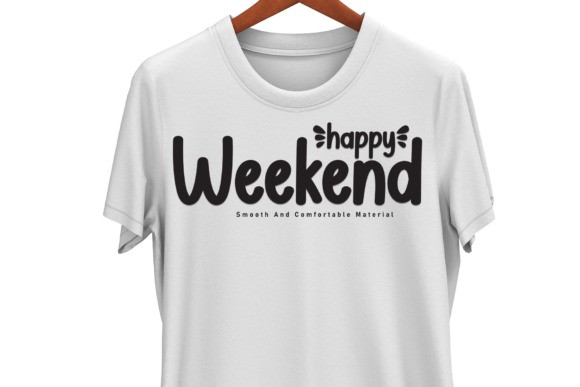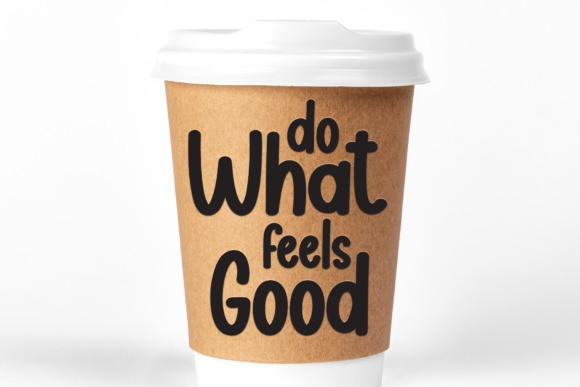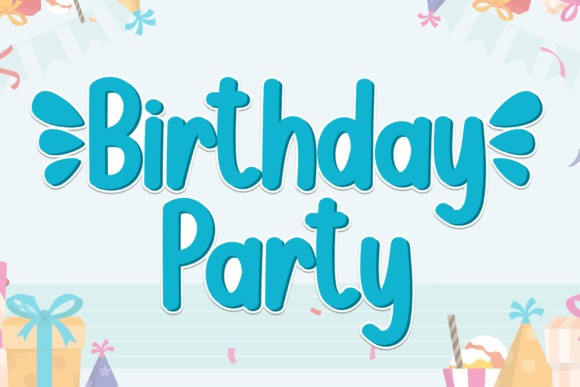
Birthday Party Font
Birthday Party Font is a sweet and friendly handwritten font. Its natural and unique style makes it incredibly fitting to a large pool of designs. The only limit is your imagination!